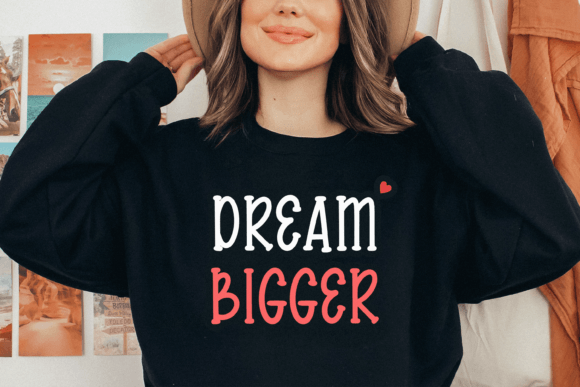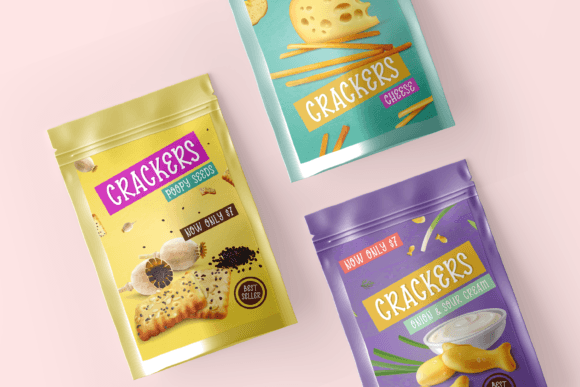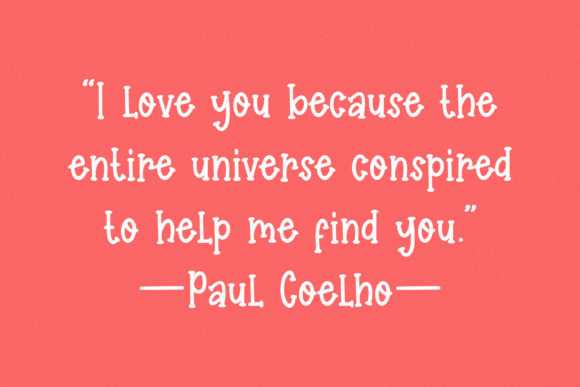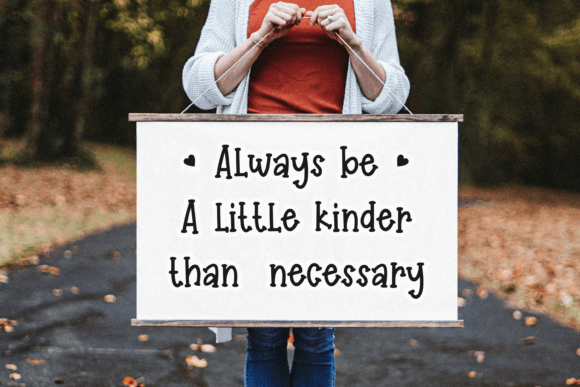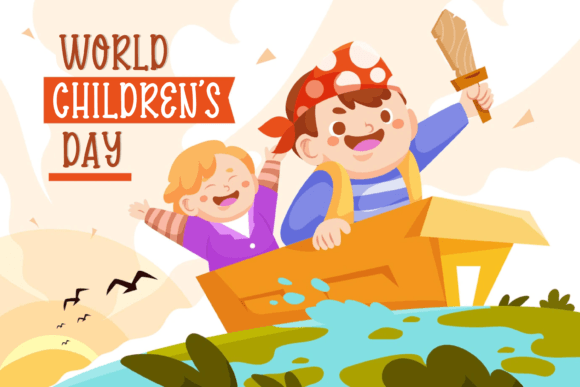
Introducing Farmwish Font: A Playful Serif Font for Creative Expression
Are you a designer, crafty person, or simply someone who loves to add a personal touch to their projects? Look no further than Farmwish Font, a playful serif font that’s perfect for a wide range of creative applications. In this article, we’ll explore the features and benefits of Farmwish Font, and show you how it can elevate your product packaging, branding projects, magazines, social media, weddings, and more.
What is Farmwish Font?
Farmwish Font is a unique and charming serif font that’s designed to add a touch of playfulness to your designs. Its distinctive features include elegant serifs, rounded edges, and a whimsical feel that’s sure to capture attention. Whether you’re looking to create a bold statement or a subtle impression, Farmwish Font is the perfect choice.
Farmwish Font is incredibly versatile, making it suitable for a wide range of creative projects. Here are just a few ideas to get you started:
- Product Packaging: Stand out on store shelves with eye-catching packaging that features Farmwish Font. From food labels to cosmetics packaging, this font is sure to make your products look appealing and unique.
- Branding Projects: Establish a strong brand identity with Farmwish Font. Use it for logos, business cards, and other marketing materials to create a cohesive and recognizable brand image.
- Magazines and Editorial Design: Add a touch of personality to your magazine or editorial design with Farmwish Font. Its playful feel makes it perfect for headlines, titles, and other design elements.
- Social Media: Make your social media posts stand out with Farmwish Font. Use it to create engaging graphics, quotes, and other visual content that will capture your audience’s attention.
- Weddings and Events: Create beautiful wedding invitations, programs, and other stationery with Farmwish Font. Its elegant and playful feel makes it perfect for special occasions.
Key Features of Farmwish Font
So what makes Farmwish Font so special? Here are some of its key features:
- Playful Serif Design: Farmwish Font features elegant serifs and a whimsical feel that’s sure to add a touch of personality to your designs.
- High-Quality Vector Graphics: Farmwish Font is designed as a high-quality vector graphic, ensuring that it looks crisp and clear even at large sizes.
- Unique and Versatile: Farmwish Font is a one-of-a-kind font that’s suitable for a wide range of creative projects.
Why Choose Farmwish Font?
With so many fonts to choose from, why should you choose Farmwish Font? Here are just a few reasons:
- Unique and Creative: Farmwish Font is a truly unique and creative font that’s sure to help your designs stand out.
- High-Quality Design: Farmwish Font is designed to high standards, ensuring that it looks professional and polished.
- Easily Customizable: Farmwish Font is easy to customize, allowing you to tailor it to your specific design needs.
Farmwish Font is a playful serif font that’s perfect for designers, crafters, and anyone looking to add a touch of personality to their creative projects. With its unique and whimsical feel, high-quality vector graphics, and ease of use, Farmwish Font is an excellent choice for product packaging, branding projects, magazines, social media, weddings, and more. So why wait? Download Farmwish Font today and start creating something amazing!